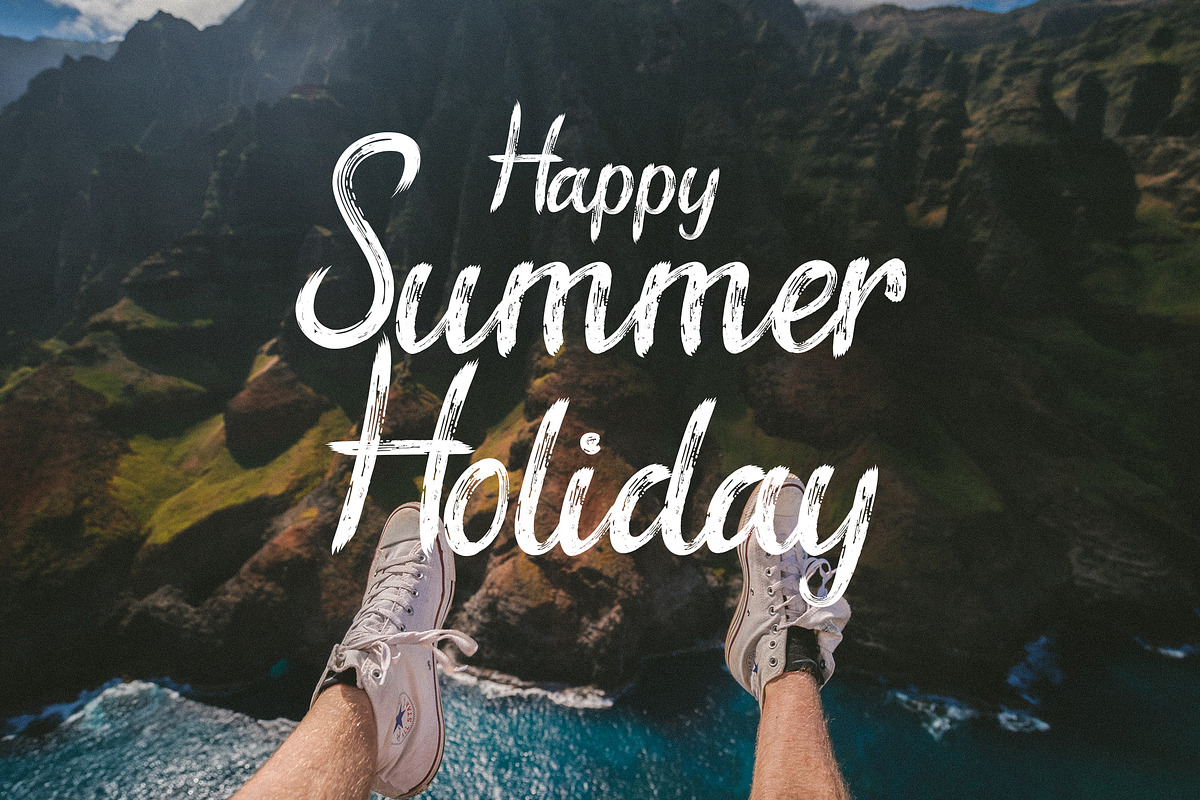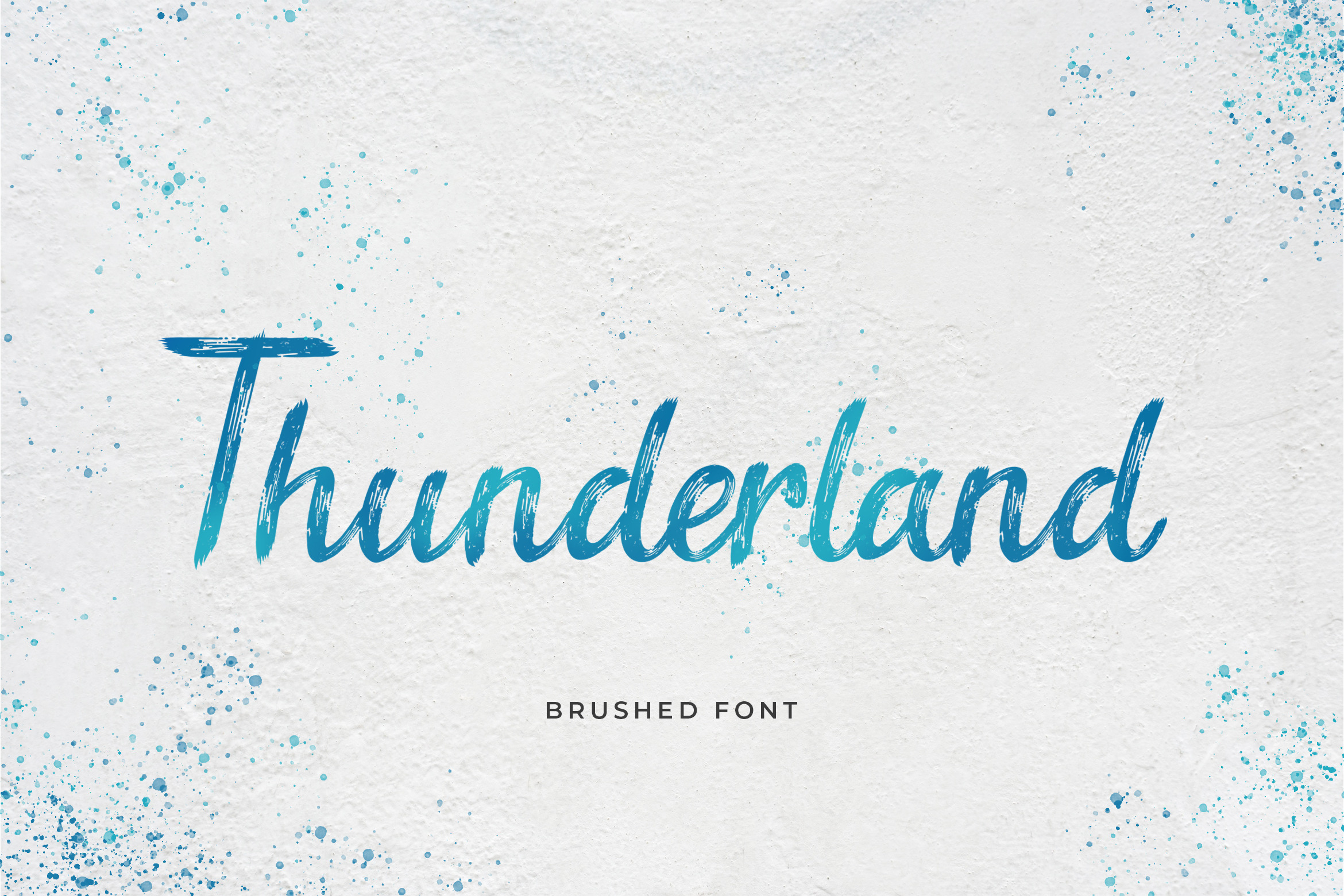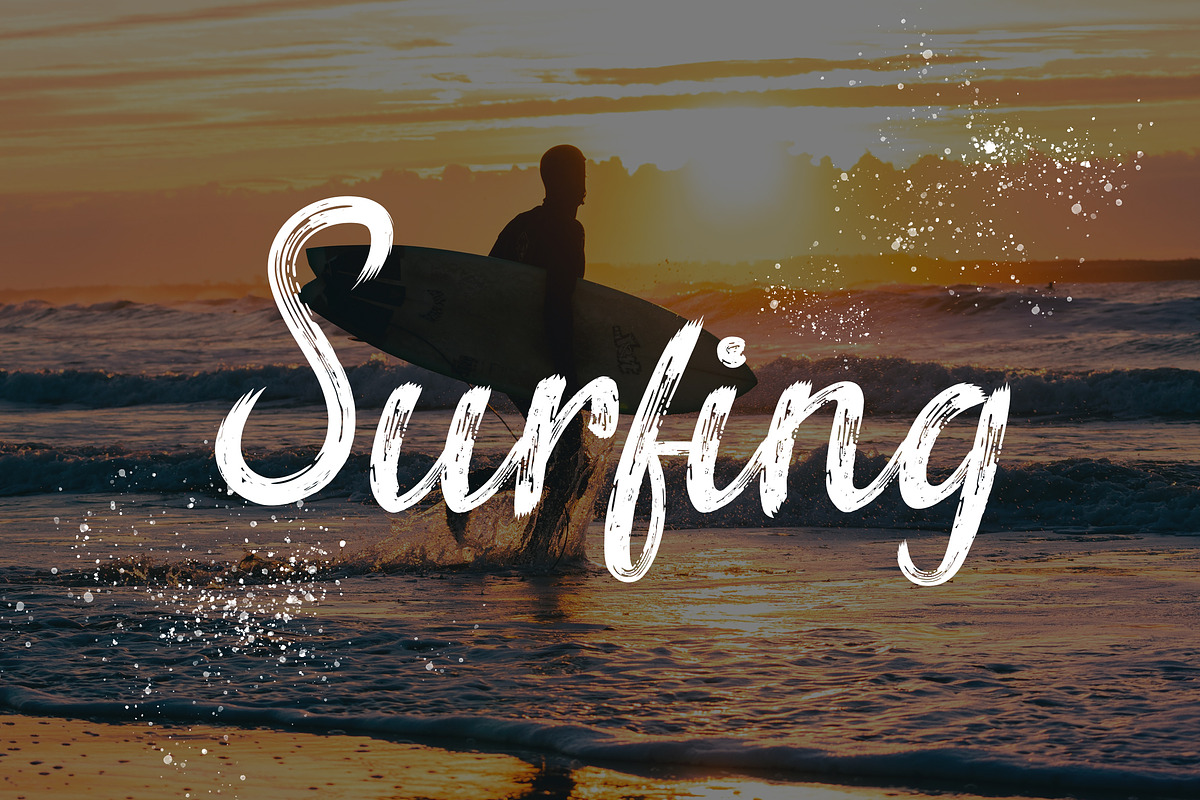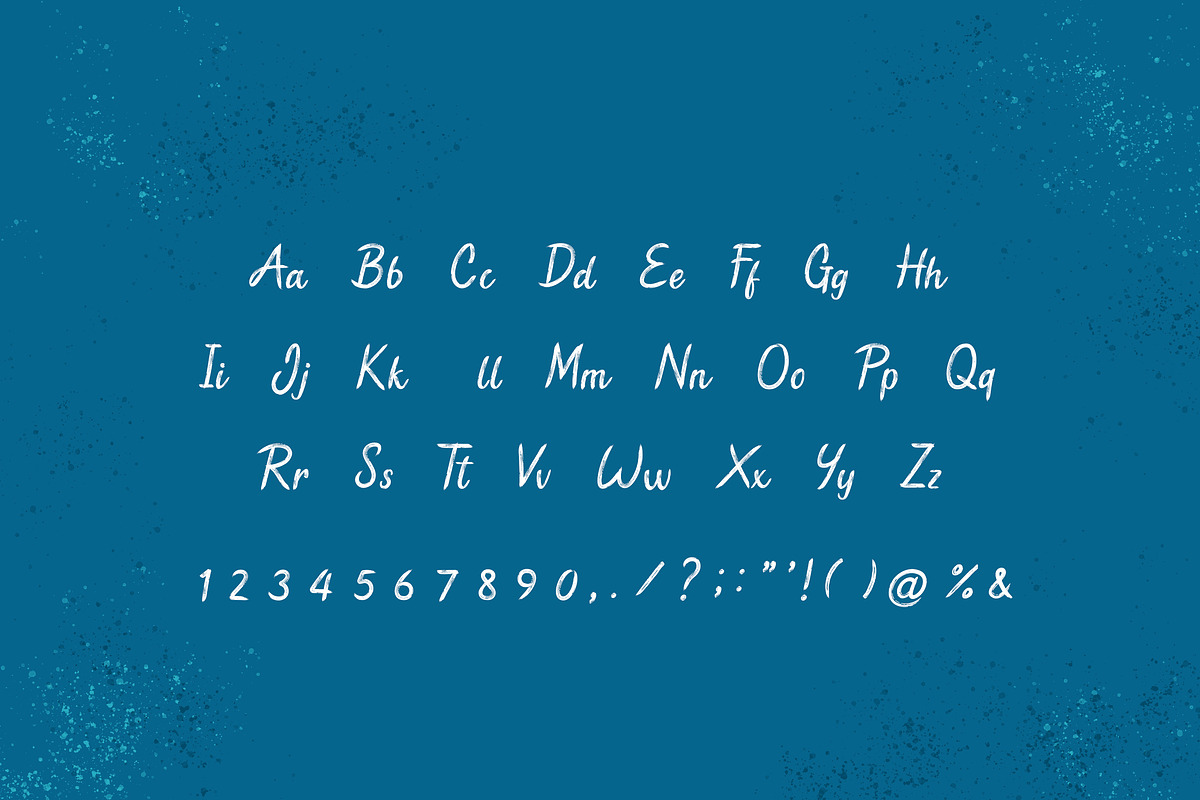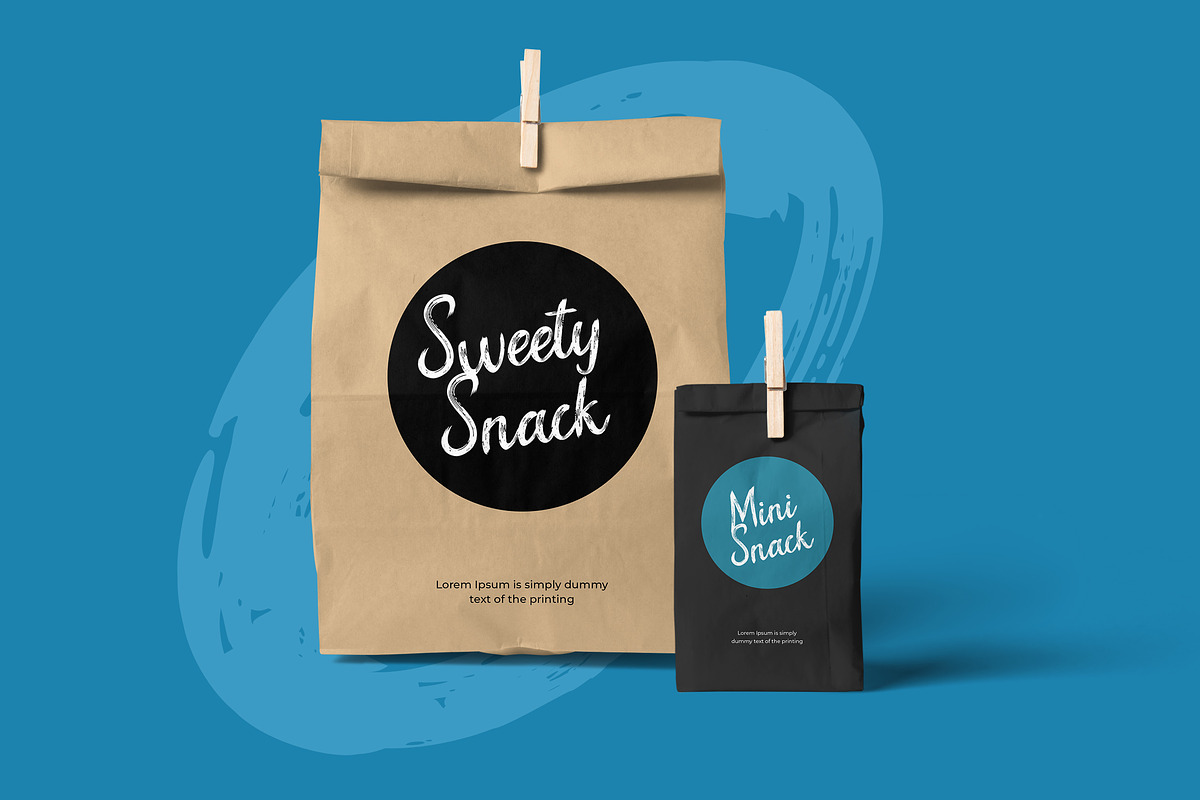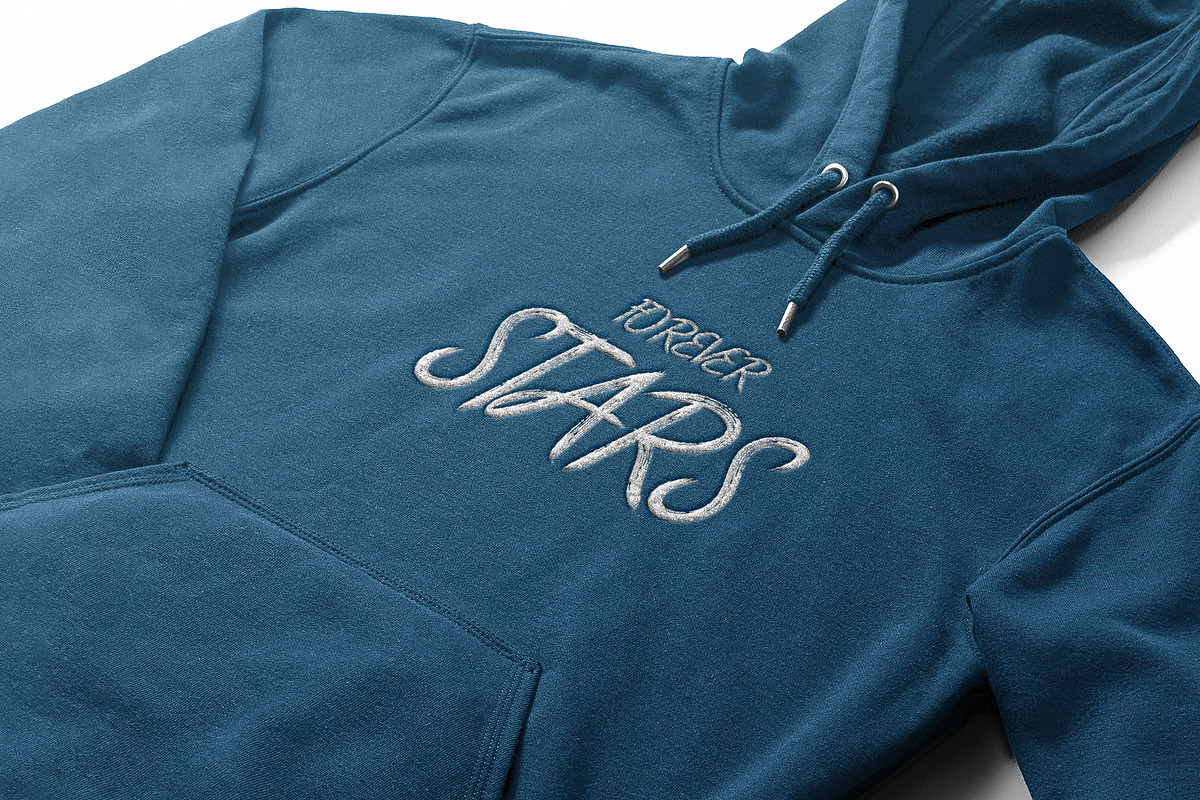
Thunderland Brush Handwritten Font
Introducing of our new product the name is Thunderland Brush Handwritten Font. Modern signature font that feels beautiful classy, elegant, and modern .This font is perfect suited for a wide variety of projects, as to signature, stationery, logo, wedding, typography quotes, magazine or book cover, website header, , branding and more. Also for fashion related branding or editorial design and displays both masculine and feminine qualities.